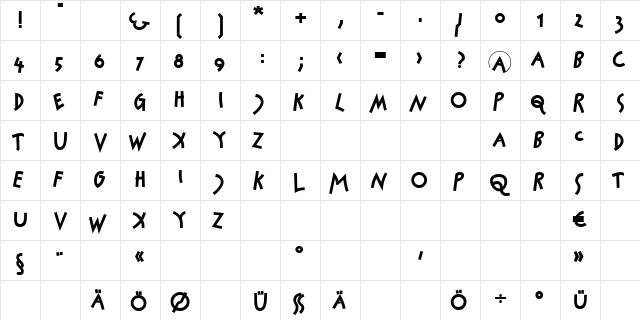
Jockey Black
Design Context for Jockey Typeface
Jockey is a composed and adaptable typeface that performs quietly and consistently across a wide range of design contexts.